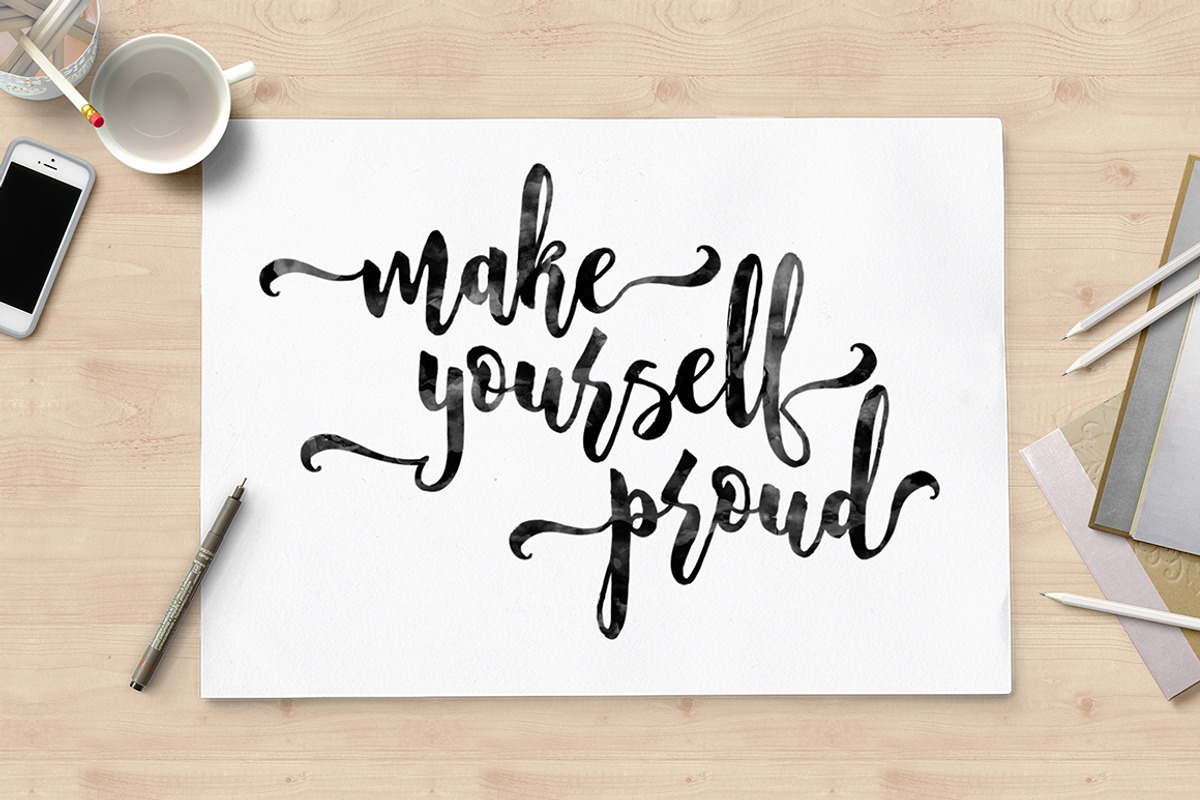
Holyhand Script
Holyhand Script is a handpainted font, bold, fancy and fabulous.Can used for various purposes. such as titles, labels, newsletters, posters, signatures, logos, correspondence, wedding invitations, letterhead, signage, badges, etc.
Holyhand Script features 261 Glyphs with 69+ Alternate character, including initial and terminal letters, alternates, ligatures and International support for most Western Languages is included.